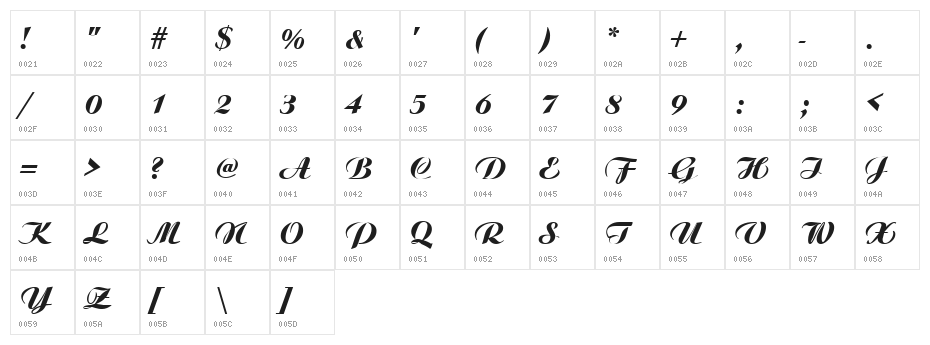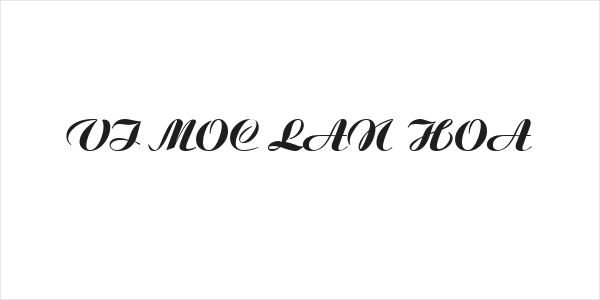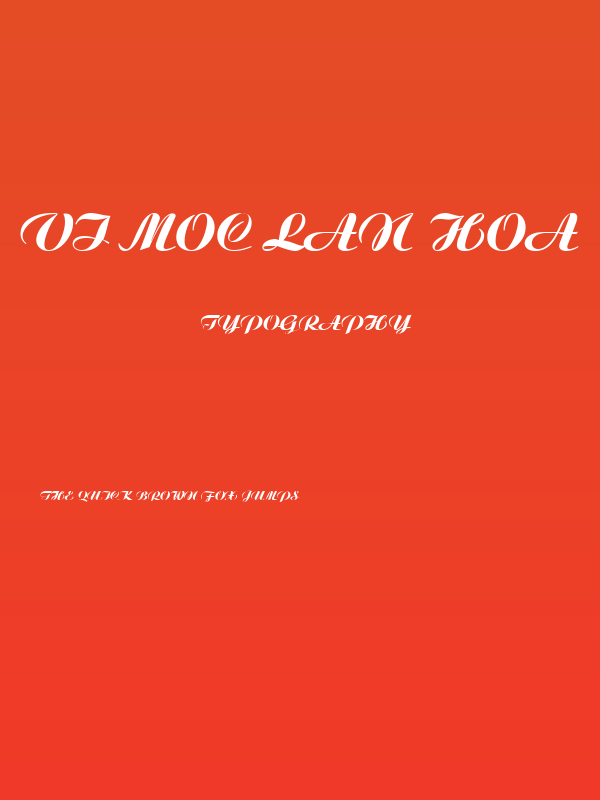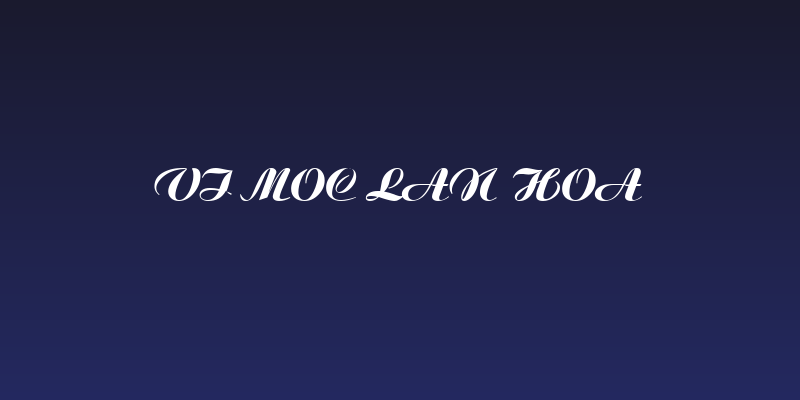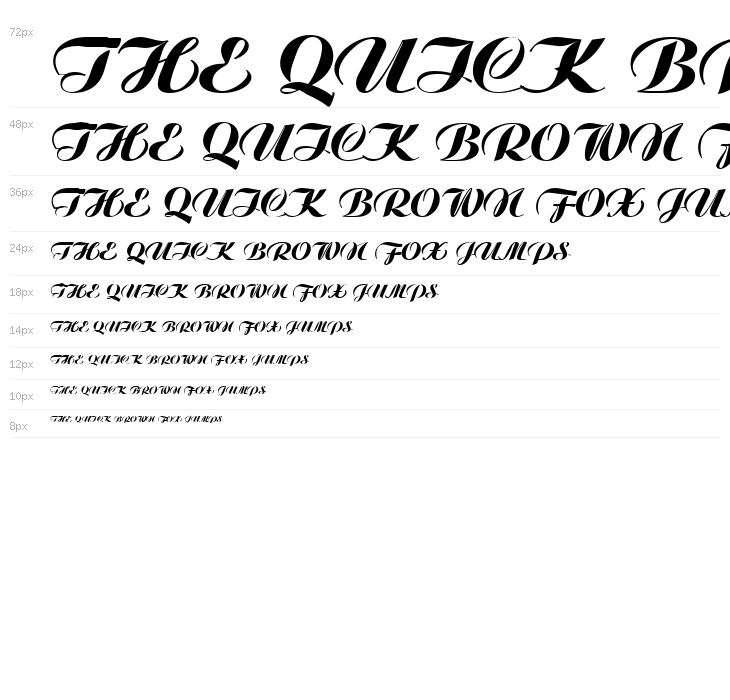
VI Moc Lan Hoa Font
VI Moc Lan Hoa Description
This elegant script font features a flowing, cursive style with high contrast between thick and thin strokes. The characters are designed with a graceful, sweeping motion, giving a sense of fluidity and sophistication. The uppercase letters are particularly ornate, with elaborate swashes and flourishes that add a decorative touch. The lowercase letters maintain a consistent style, complementing the uppercase with their own subtle curves. The numerals are bold and clear, maintaining the overall aesthetic of the font. Special characters are included, each designed with the same attention to detail, ensuring a cohesive look across all elements.